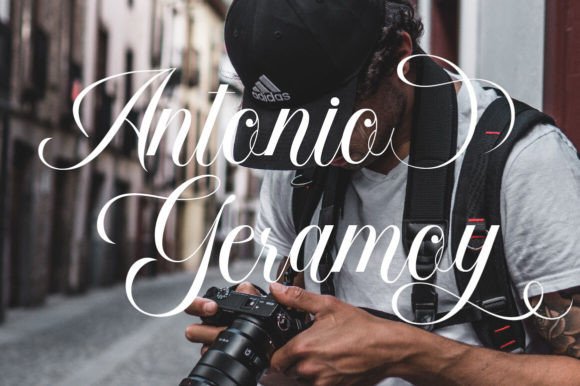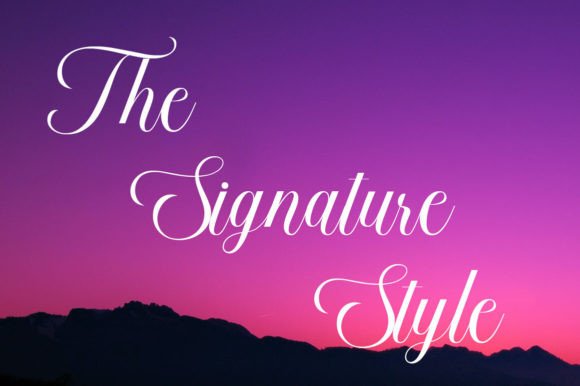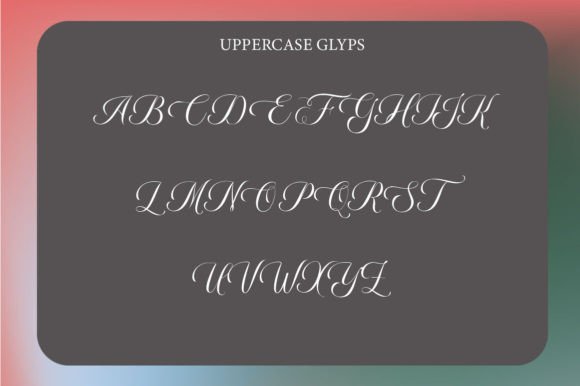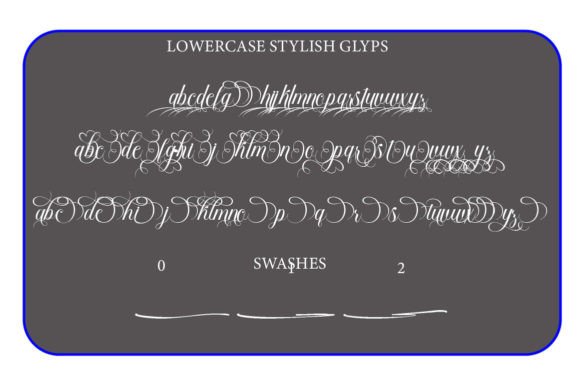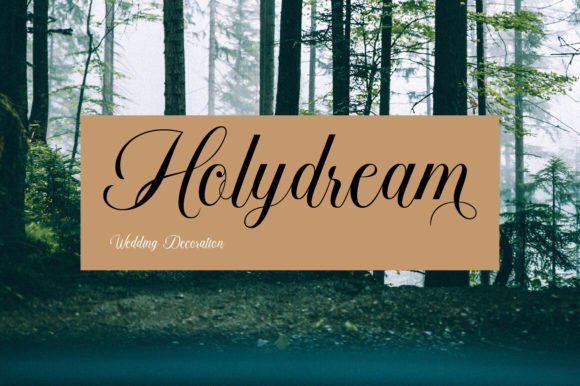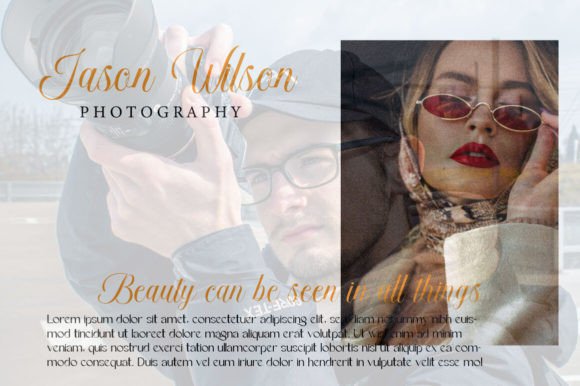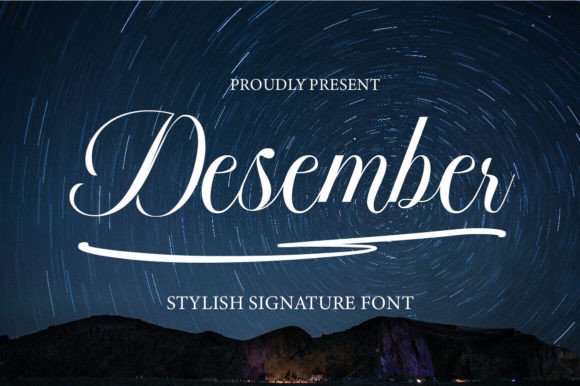
Introducing December Font: Elevate Your Designs with Elegance and Sophistication
In the world of typography, a well-crafted font can make all the difference in elevating your design from ordinary to extraordinary. If you’re a designer, craft, or simply someone who appreciates the art of beautiful lettering, you’re in luck. We’re excited to introduce the December Font, a stunning script font that embodies the essence of elegance and sophistication.
The December Signature: A Fashionable and Sophisticated Script Font
The December Signature is an amazing script font that boasts a fashionable and sophisticated signature style. Its unique curves and elegant inky flow make it the perfect addition to any design project that requires a touch of refinement and poise. Whether you’re working on branding projects, logos, wedding designs, social media posts, advertisements, product packaging, or any other design that needs a handwritten feel, the December Font is sure to impress.
What Sets December Font Apart
So, what makes the December Font stand out from the rest? Here are a few key features that set it apart:
- Unique Curves and Elegant Inky Flow: The December Font features beautiful, flowing curves that give it a distinctive and elegant look. The inky flow adds a touch of organic, hand-crafted feel to the font, making it perfect for designs that require a personal touch.
- Fashionable and Sophisticated: The December Font is designed to exude style and sophistication. Its refined lines and curves make it perfect for high-end branding projects, luxury packaging, and elegant wedding designs.
- Versatile: The December Font is incredibly versatile and can be used for a wide range of design projects. Whether you’re creating a logo, social media post, or product packaging, this font is sure to adapt to your needs.
The December Font is a dream come true for designers and crafters who appreciate the art of beautiful lettering. With its elegant and sophisticated style, this font is perfect for:
- Branding Projects: Create a lasting impression with the December Font. Its refined style makes it perfect for logos, business cards, and other branding materials.
- Wedding Designs: Add a touch of elegance to your wedding designs with the December Font. It’s perfect for wedding invitations, save-the-date cards, and other wedding-related materials.
- Social Media Posts: Elevate your social media posts with the December Font. Its stylish and sophisticated look is sure to grab attention and leave a lasting impression.
- Product Packaging: Give your product packaging a luxurious feel with the December Font. Its elegant style makes it perfect for high-end packaging designs.
Tips for Using the December Font
To get the most out of the December Font, here are a few tips to keep in mind:
- Use it Sparingly: While the December Font is elegant and sophisticated, it’s best to use it sparingly. Use it for headings, titles, or key phrases to add emphasis and create visual interest.
- Pair it with Other Fonts: Experiment with pairing the December Font with other fonts to create a unique and visually appealing combination. Try pairing it with a clean sans-serif font for a stylish contrast.
- Play with Colors: The December Font looks stunning in a variety of colors. Experiment with different colors to find the one that best suits your design.